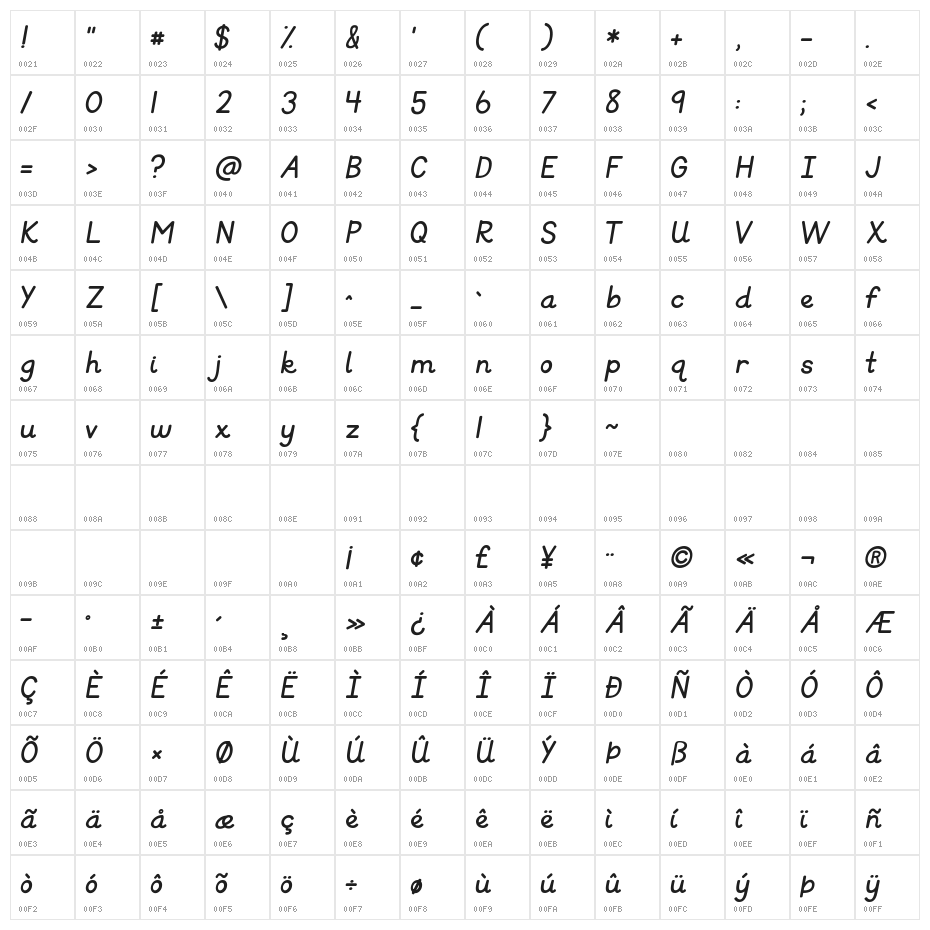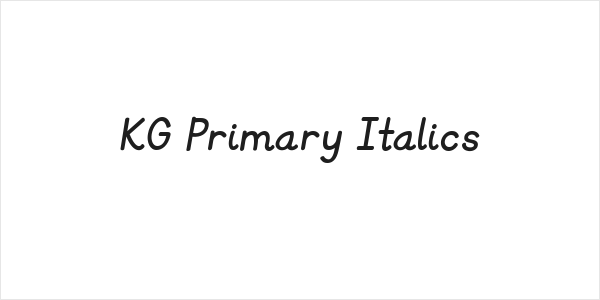
KG Primary Italics Font
KG Primary Italics Description
This font features a playful and friendly style with a handwritten appearance. The letters are slightly slanted, giving it an italicized look that adds a sense of movement and dynamism. The strokes are smooth and rounded, contributing to its approachable and informal character. It maintains consistent stroke width, providing a uniform and clean appearance. The spacing between characters is balanced, ensuring readability while retaining its casual aesthetic. This font includes a full set of uppercase and lowercase letters, numbers, and a variety of special characters, making it versatile for various applications.
| Use Case | Headlines, Informal text, Educational materials |
| Proposed Projects | Ideal for educational materials, children's books, greeting cards, and playful branding projects. |